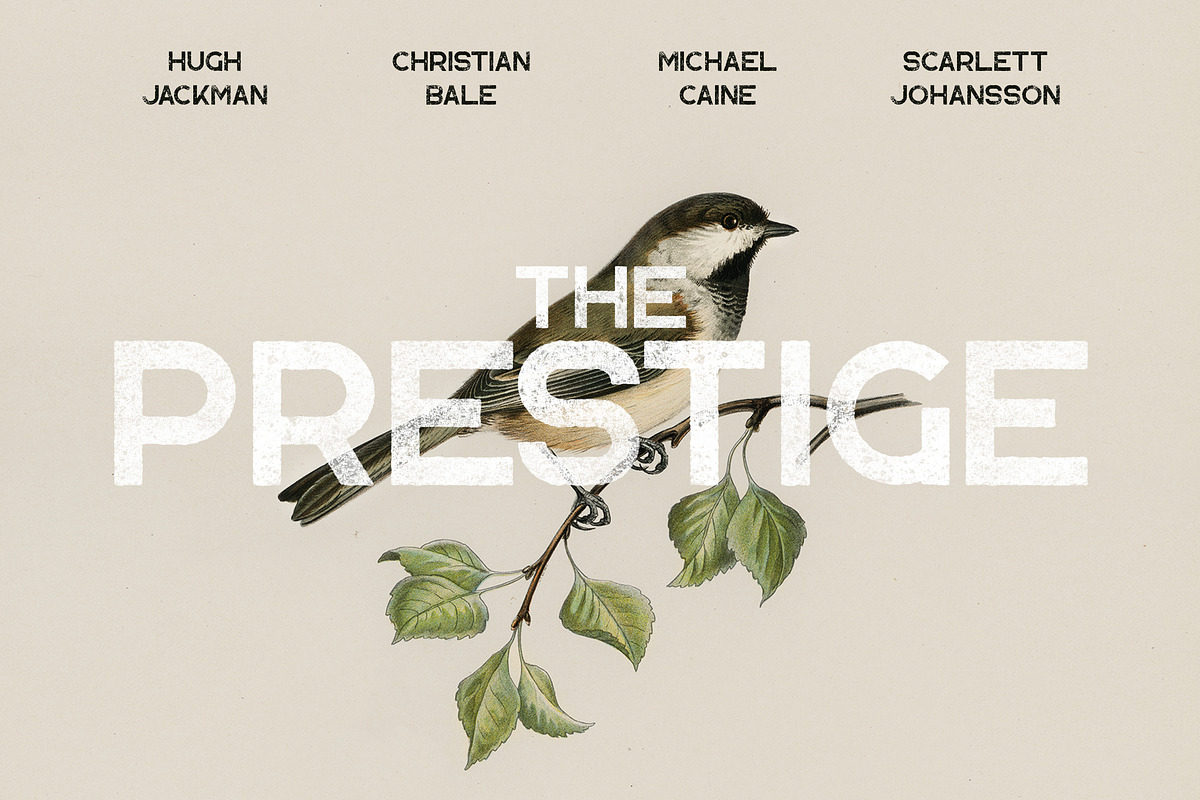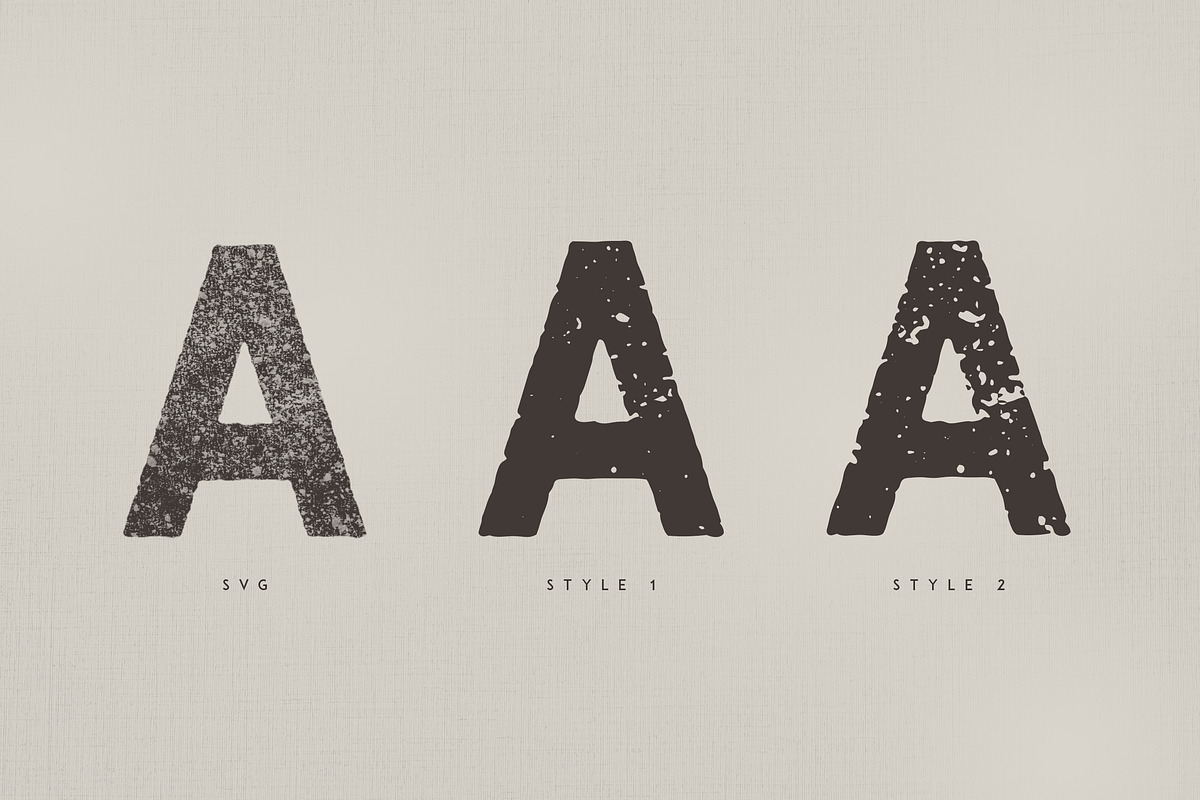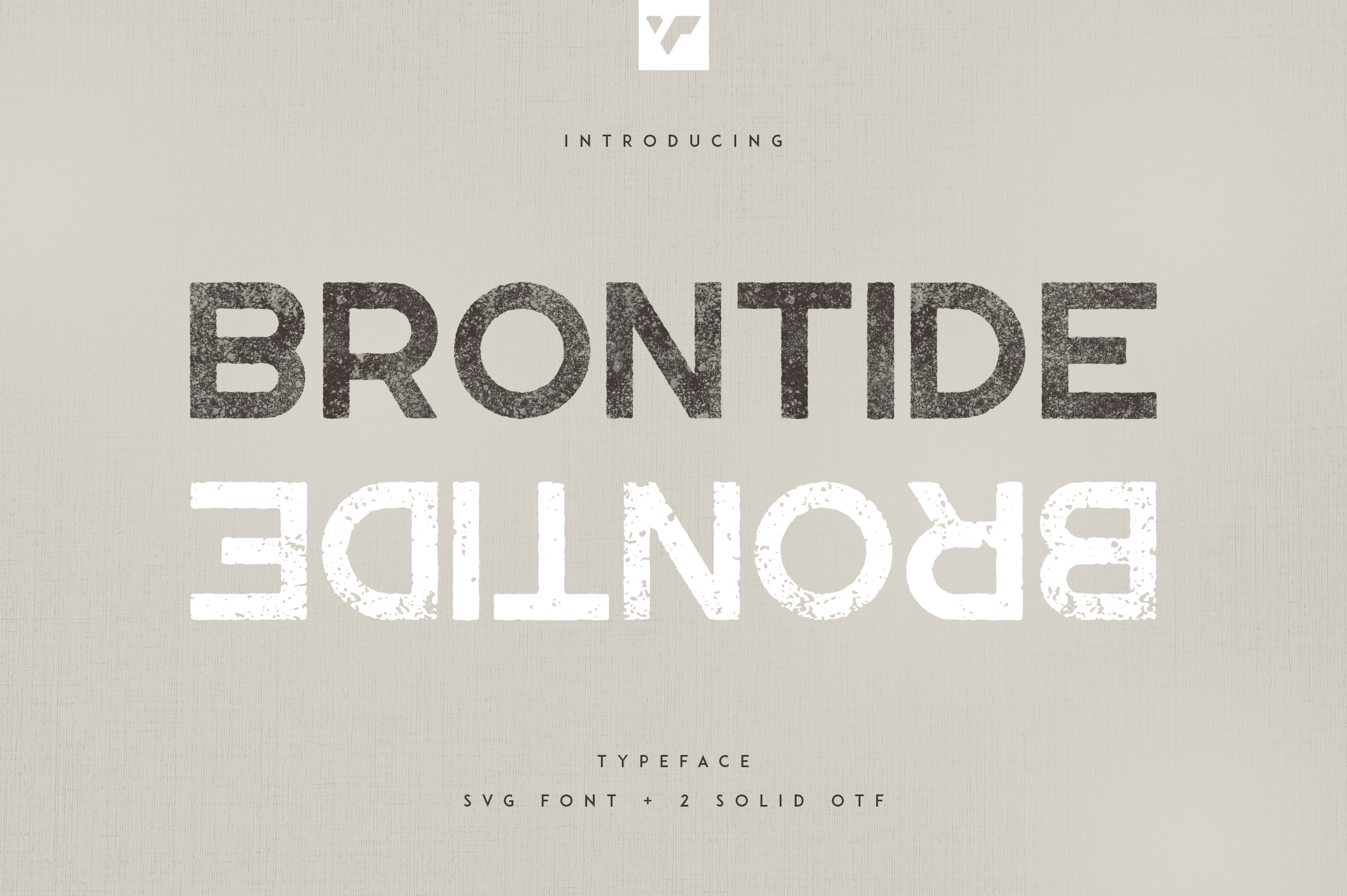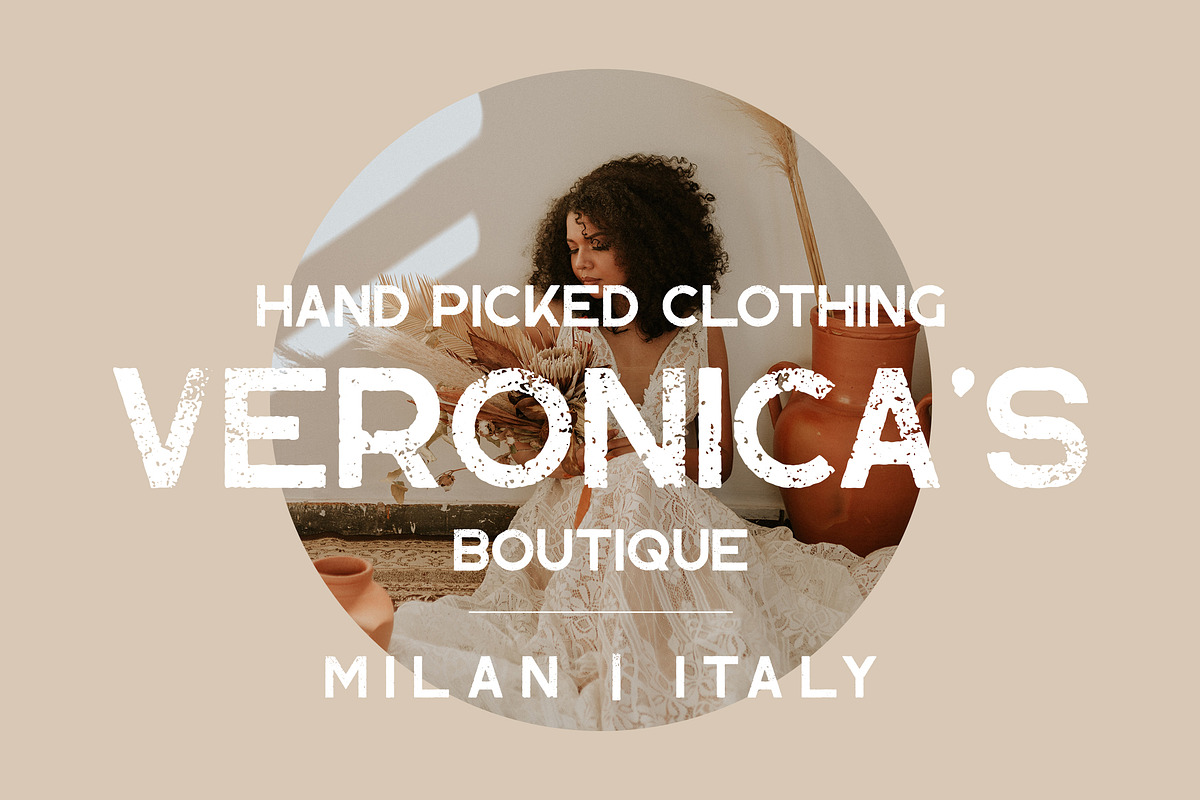
Brontide Typeface - SVG + 2 OTF font
Introducing Brontide VP Typeface - Bitmap vsg font + 2 solid fonts
Brontide is perfect for branding projects, home-ware designs, product packaging, magazine headers - or simply as a stylish text overlay to any background image.